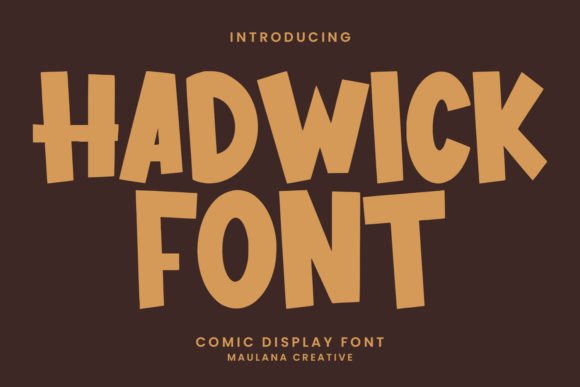
Behold, Hadwick, a display font that ignites the flames of creativity and breathes life into your designs. Crafted by Maulana Creative, this bold and playful font captivates with its thick strokes, whimsical characters, and a sprinkling of ligatures and alternates that add an extra dash of personality.
Journey through a world of design possibilities with Hadwick, the font that knows no bounds. Its multilingual prowess, encompassing over 100 languages, makes it a global communicator, ready to spread your message far and wide.
With Hadwick by your side, unleash your imagination and create logos that leave a lasting impression, social media posts that pop, movie titles that intrigue, and book covers that beckon readers to delve into your stories. Hadwick's versatility extends to short and long texts alike, making it the perfect companion for any project that demands attention.
Step into the spotlight with Hadwick, the font that elevates your designs to new heights. Its bold presence commands attention, while its playful charm invites engagement. Whether you pair it with a classic serif or a flowing script, Hadwick enhances the impact of your words, leaving an indelible mark on your audience.
So, embrace Hadwick, the font that ignites your creative spark and propels your designs to greatness. Make a stunning impression, share your stories with the world, and let your creativity shine brighter than ever before.